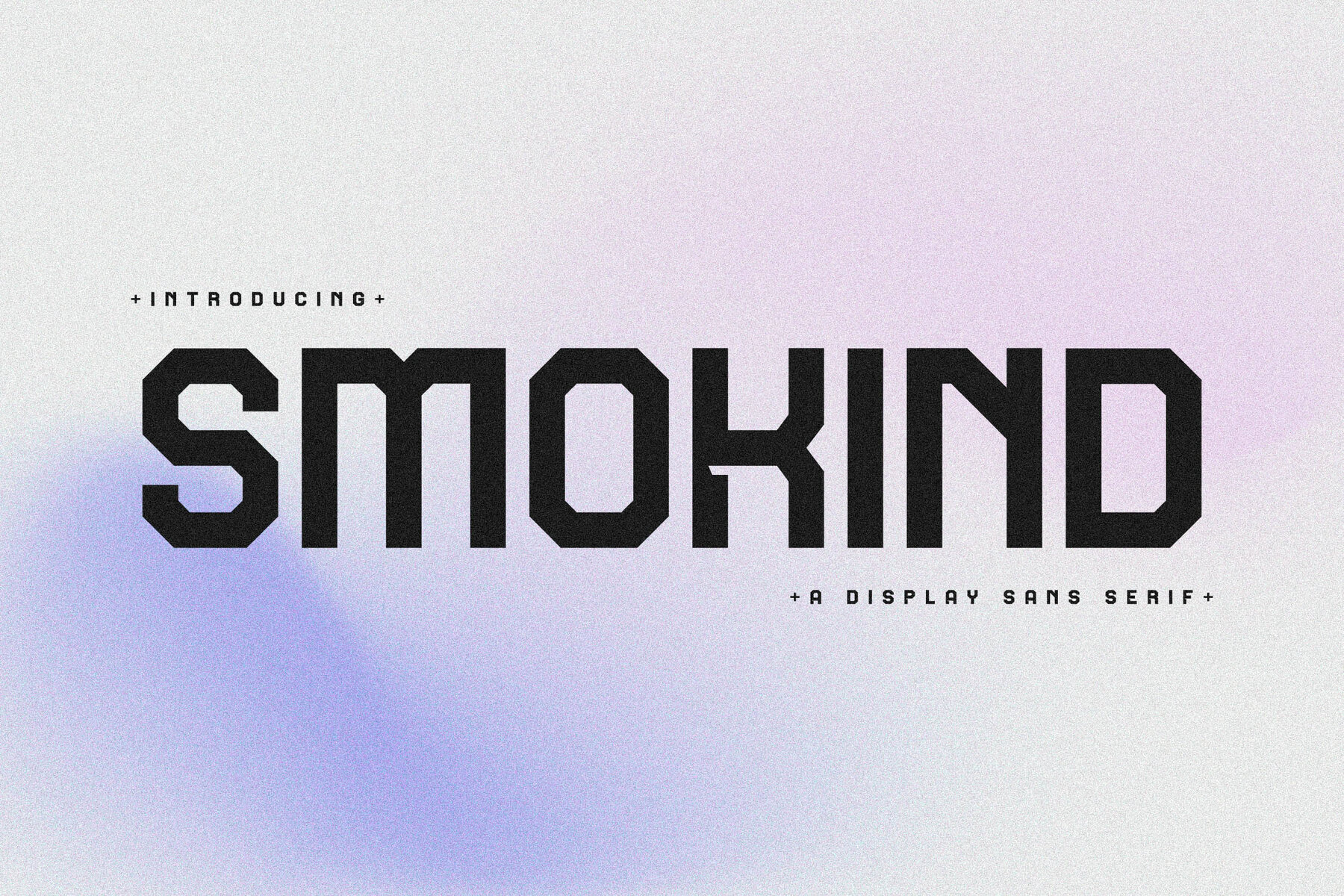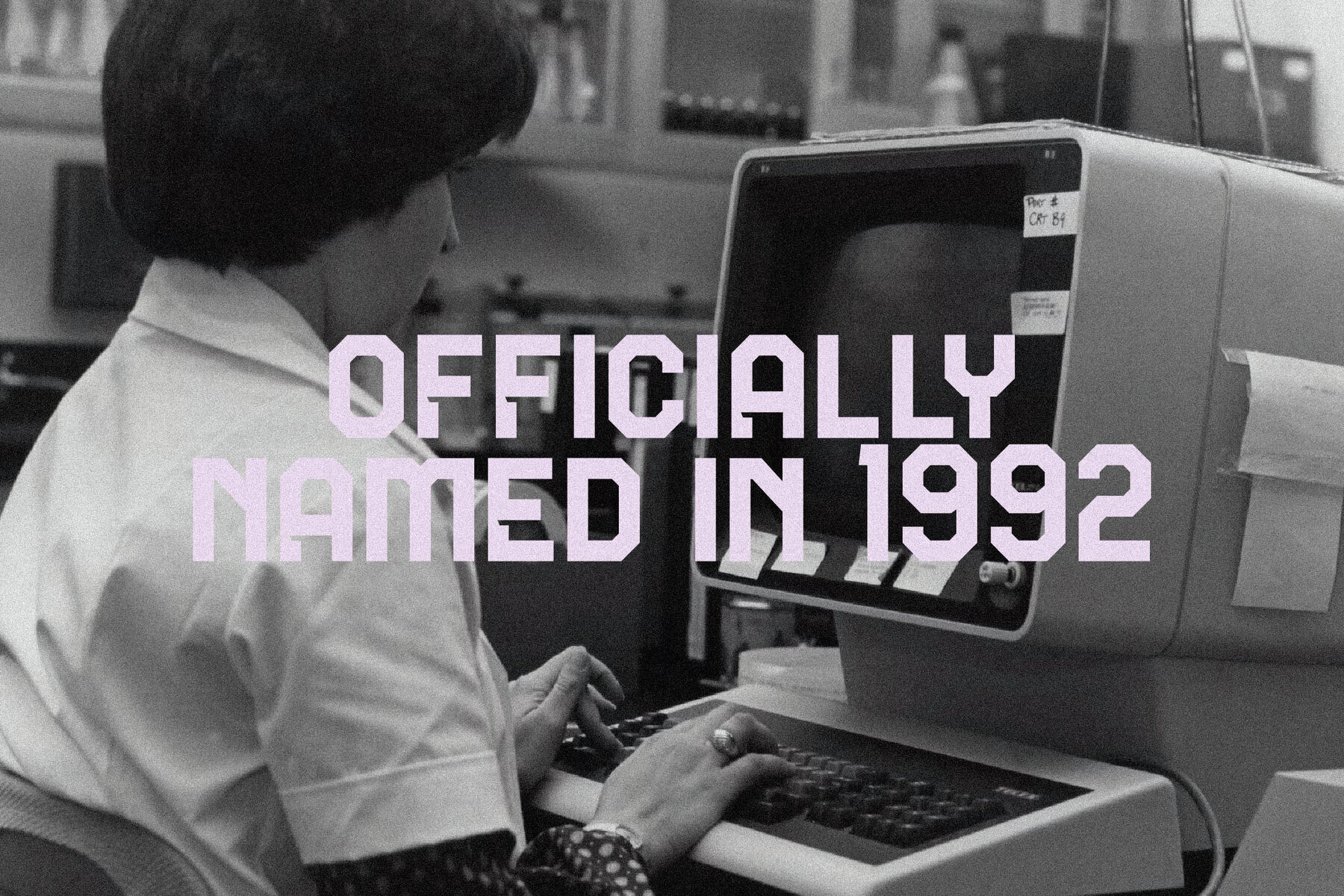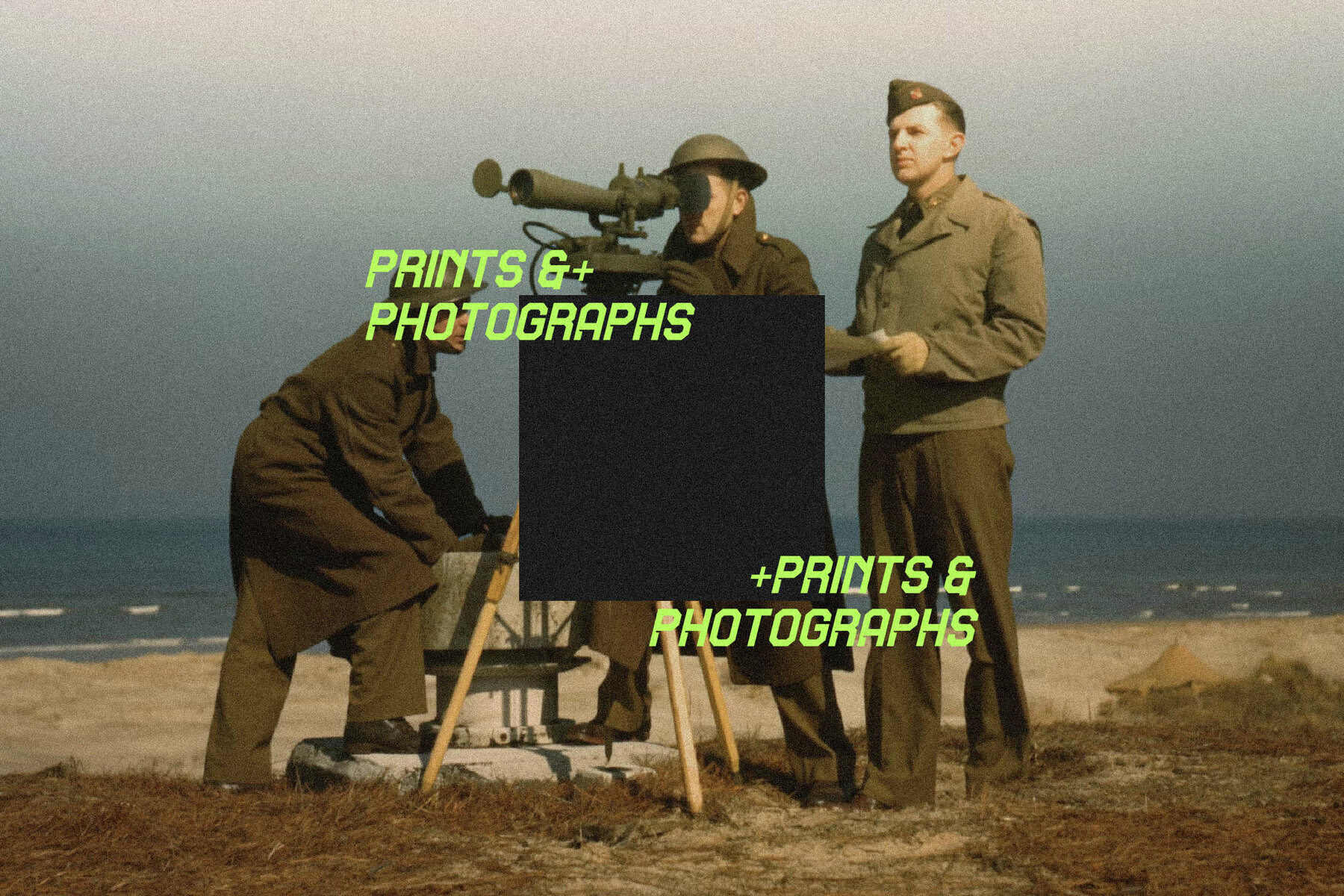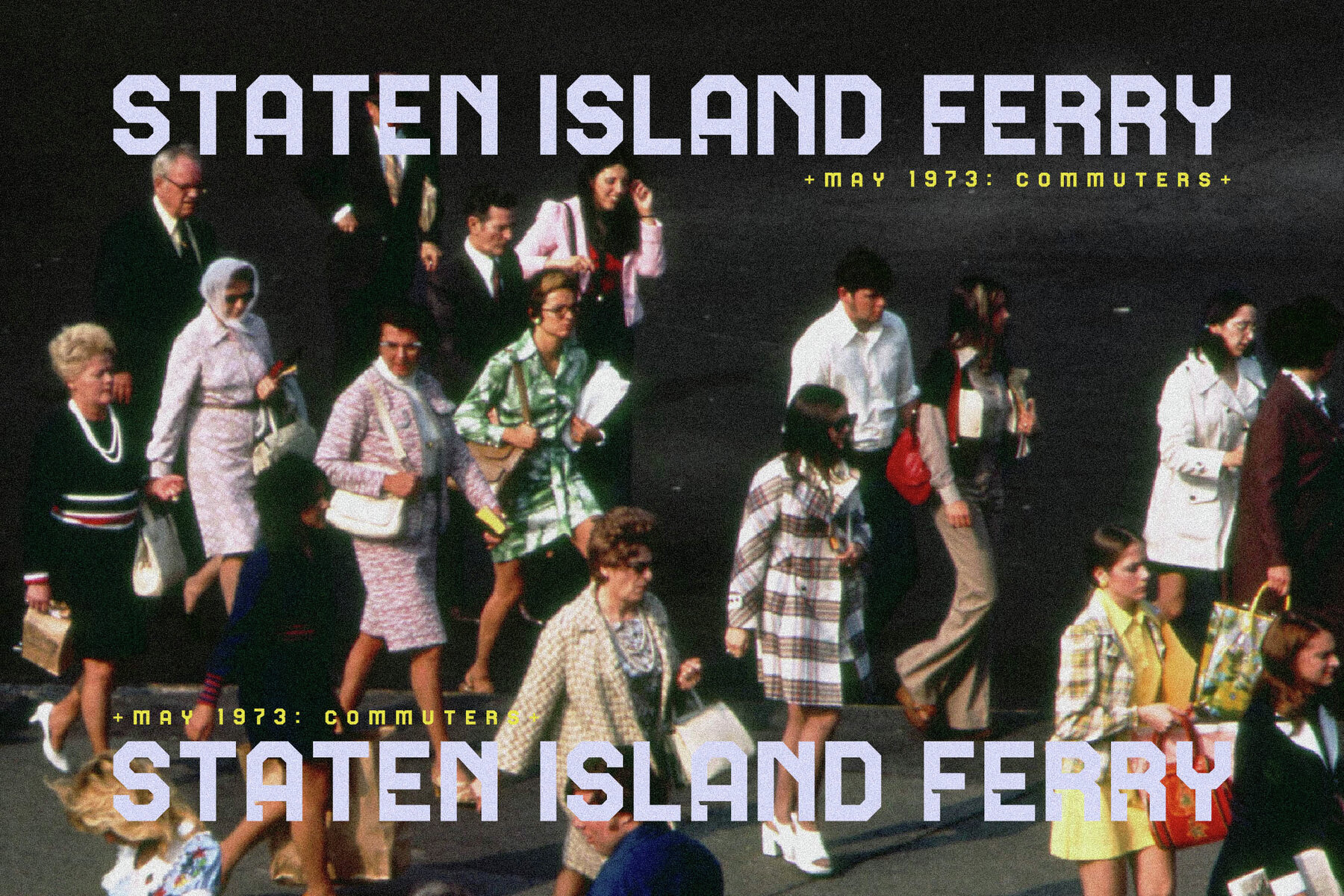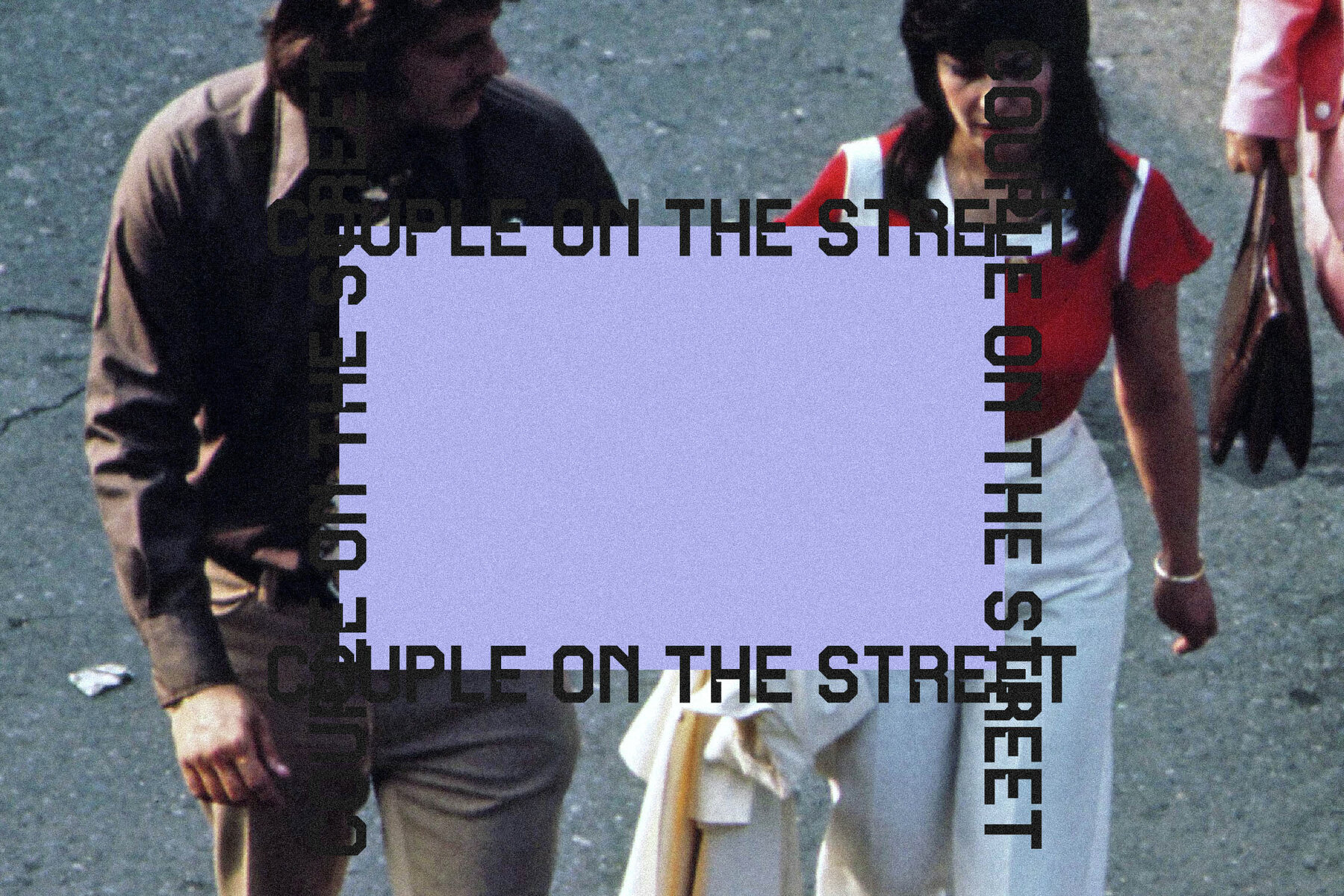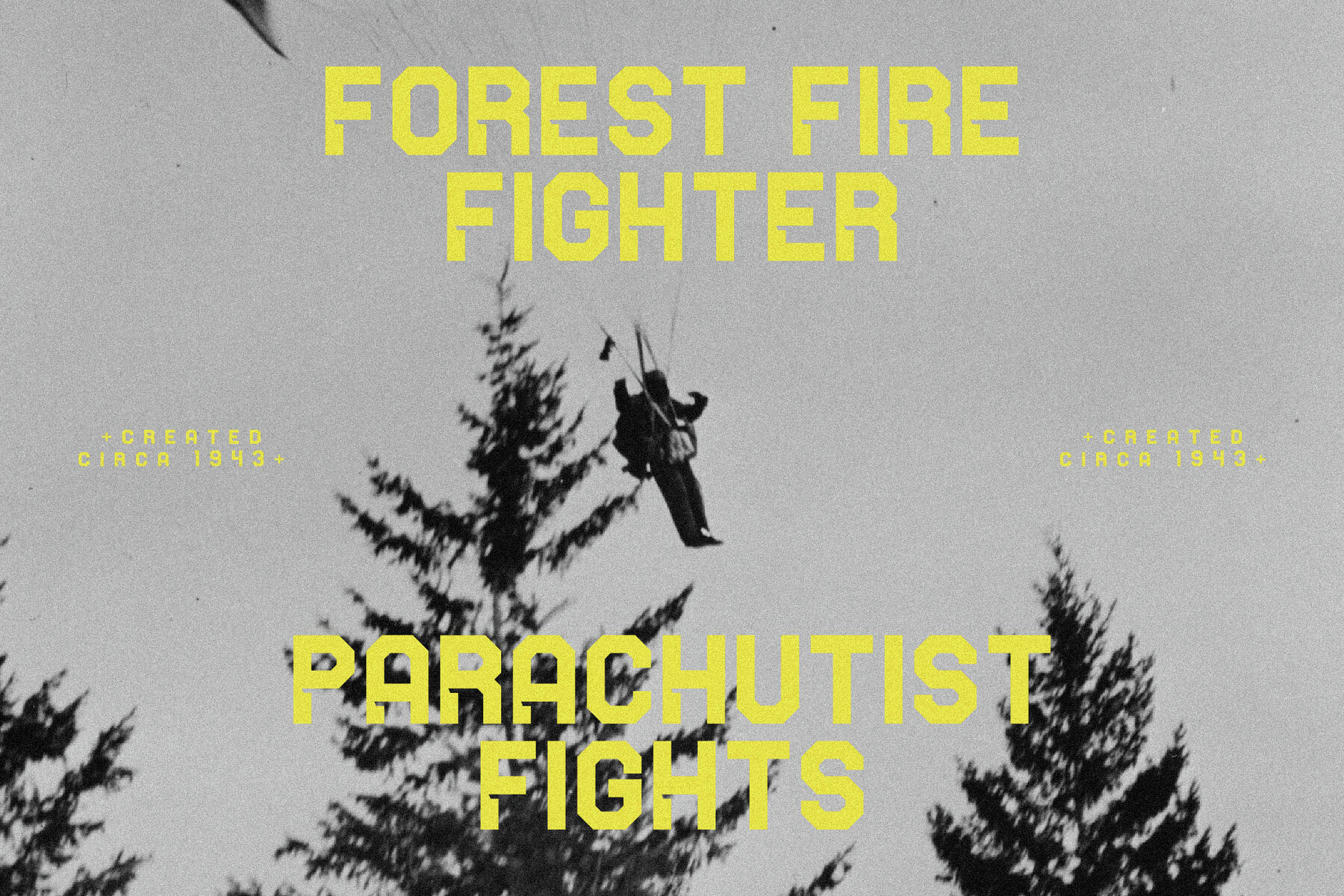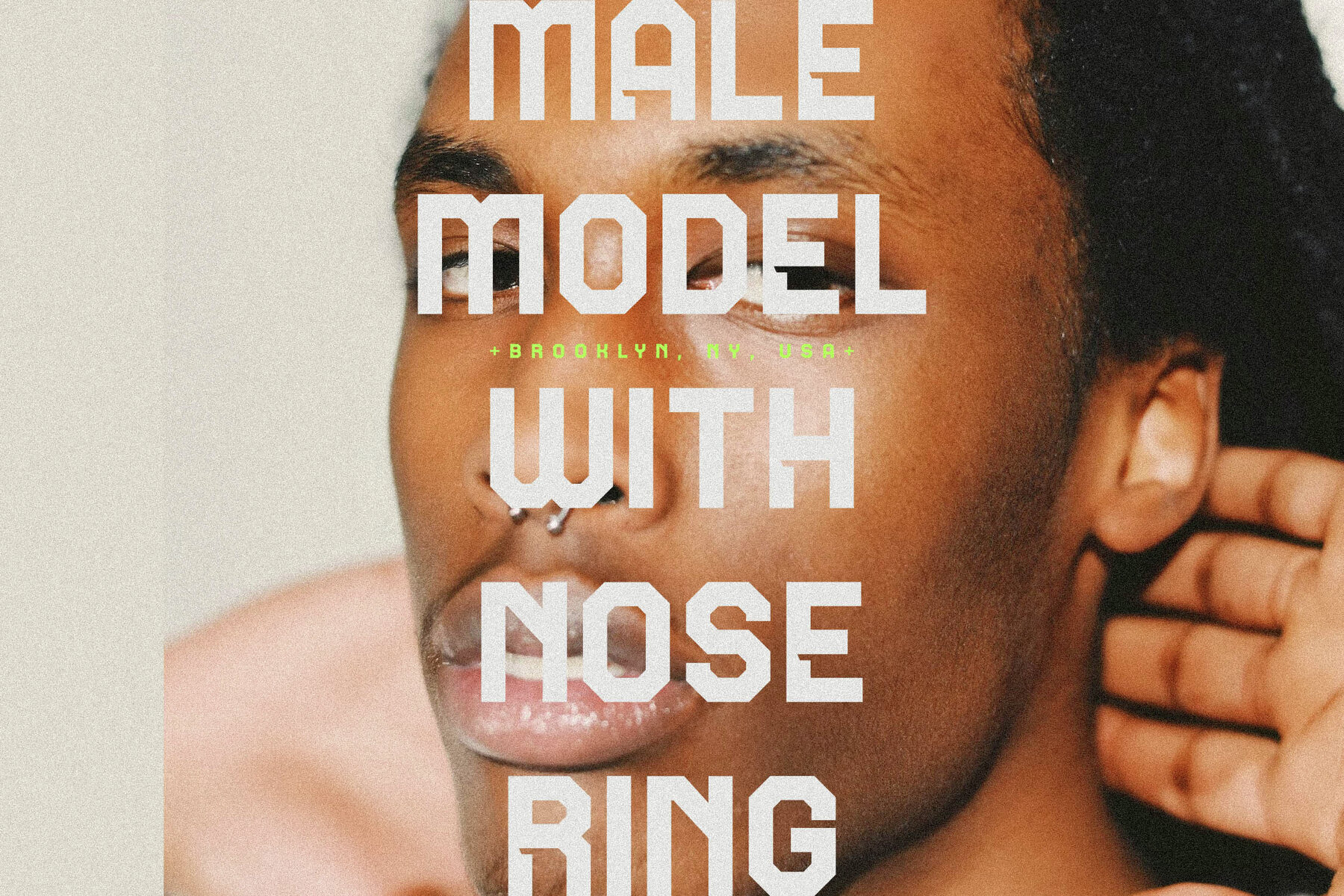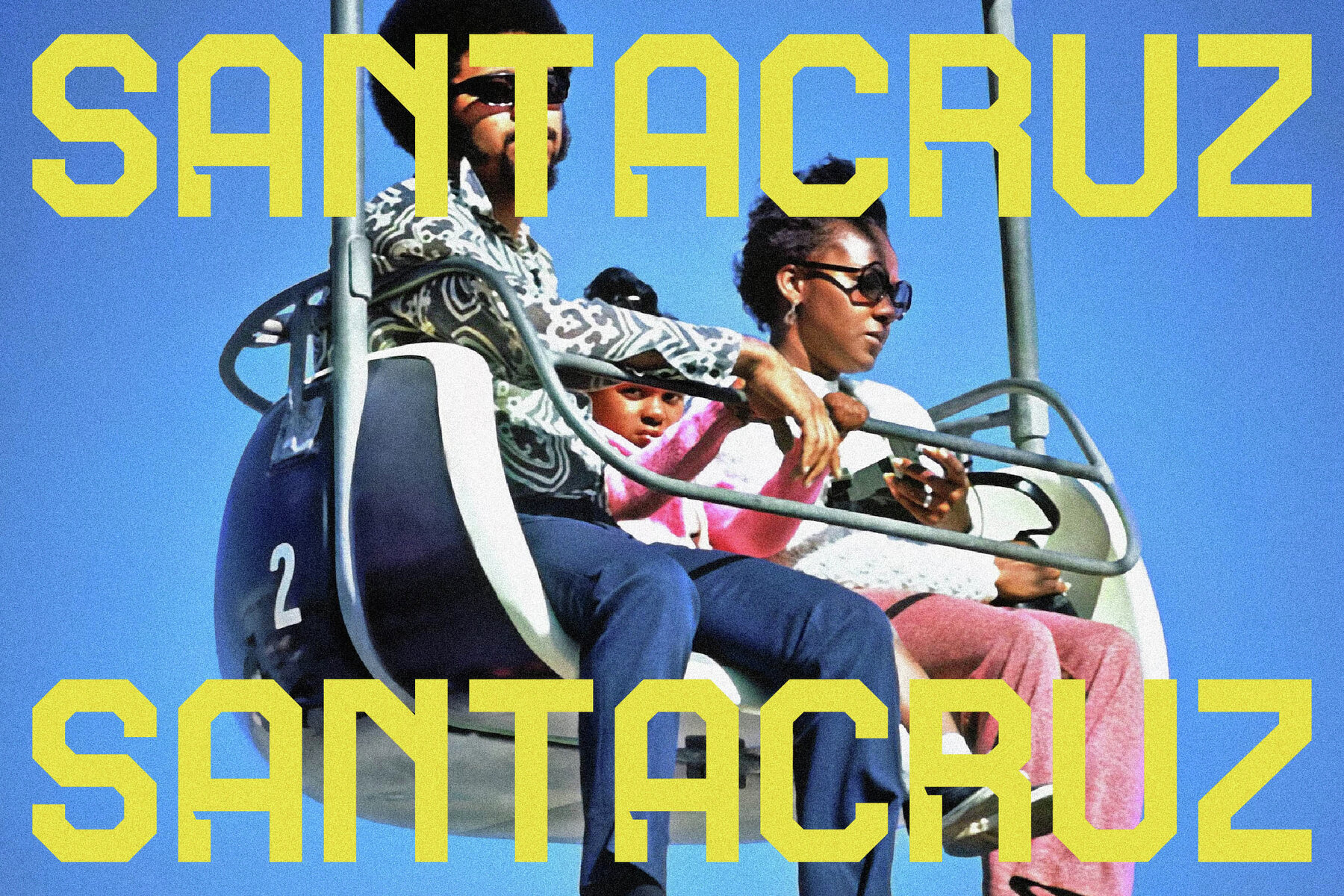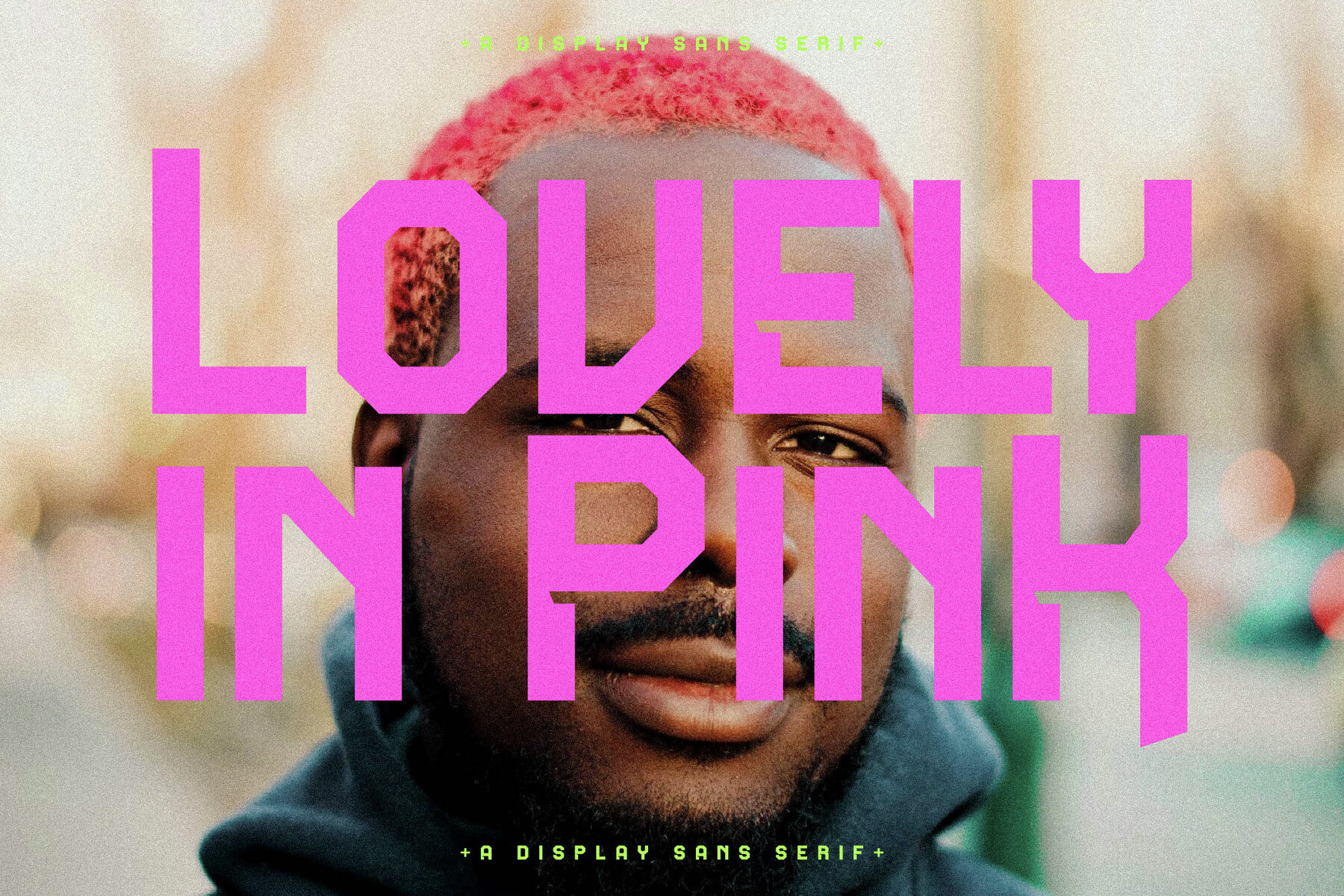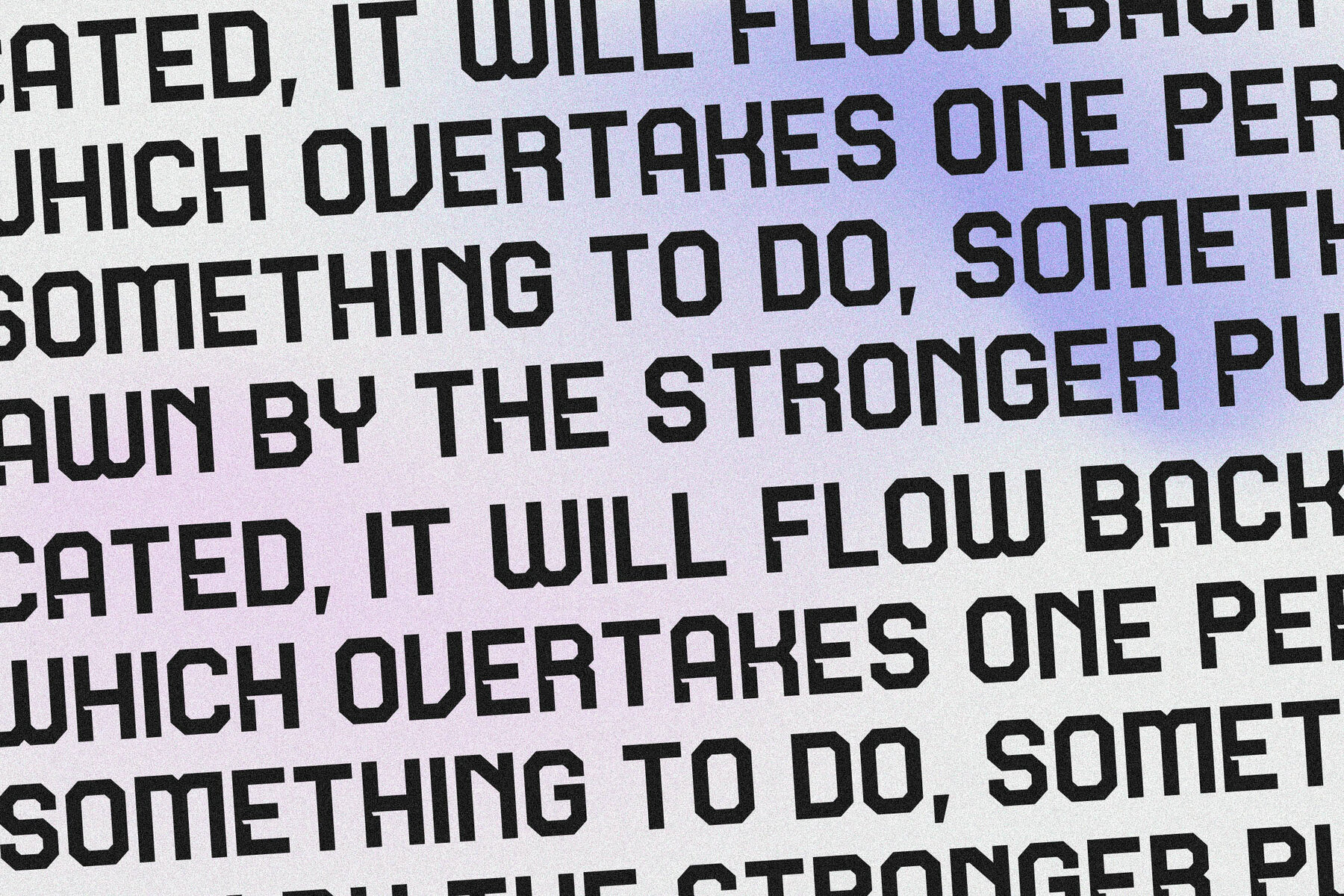
SMOKIND Font
Introducing the SMOKIND Typeface, a versatile serif font with a distinctive blend of modern and classic elegance. Ideal for creating luxurious logos, book and movie titles, fashion brand identities, magazines, clothing designs, and more. SMOKIND's unique charm enhances your creative projects with its sophisticated style.SMOKIND Typeface